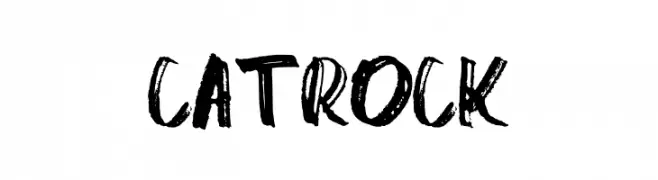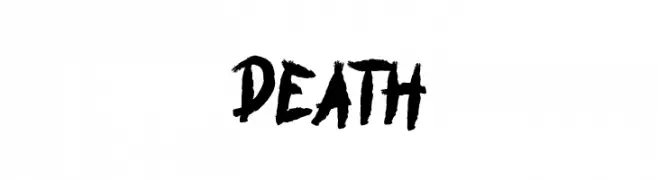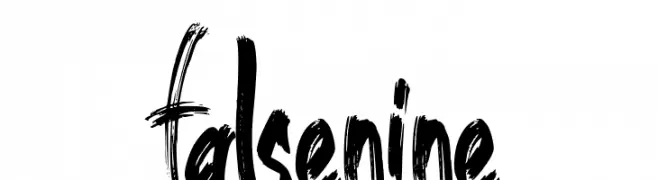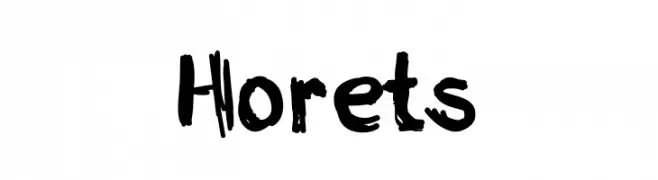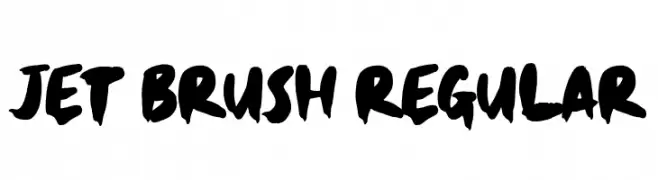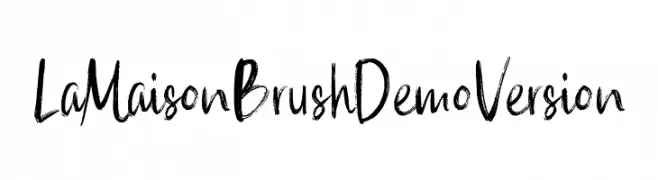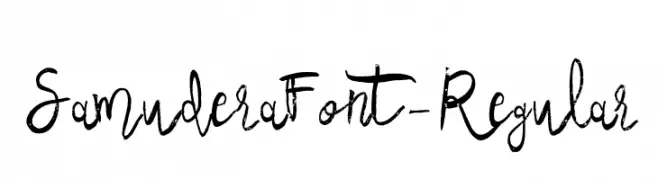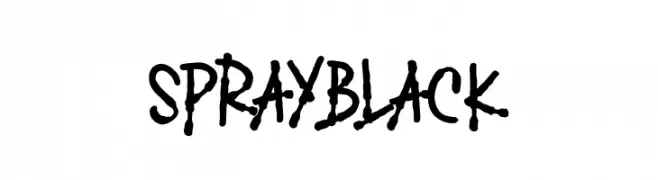
A bold, brush-style font with expressive, hand-painted strokes.
A dynamic, brush-stroke font with an expressive, hand-painted style.
A bold, brush-style font with dynamic, hand-painted strokes.
A bold, expressive script font with a hand-painted look.
A bold, expressive brush-style font with a dynamic, hand-painted look.
A dynamic, hand-painted style font with a textured, brush-like appearance.
A dynamic, brush-style font with expressive, hand-painted strokes.
A bold, hand-painted font with dynamic, expressive strokes.
A bold, graffiti-inspired font with a spray-painted effect.
A bold, brush-style font with dynamic, hand-painted strokes.